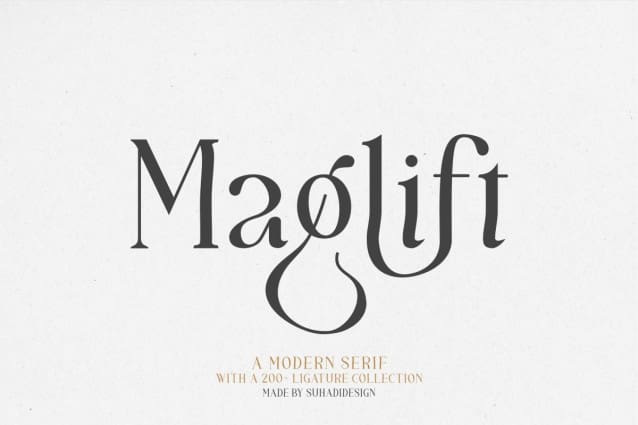
Maglift Font
Maglift font is a modern serif font with 200+ ligatures. is here to become a market favorite. We made this font look elegant, classy, easy to read, stylish, attractive and easy to use. MagliftFont is a great choice for magazine designs, newspapers, fashion, classy designs, newspapers, modern, books, brand names, branding and other projects. The Maglift font is here to enhance the quality of your designs.